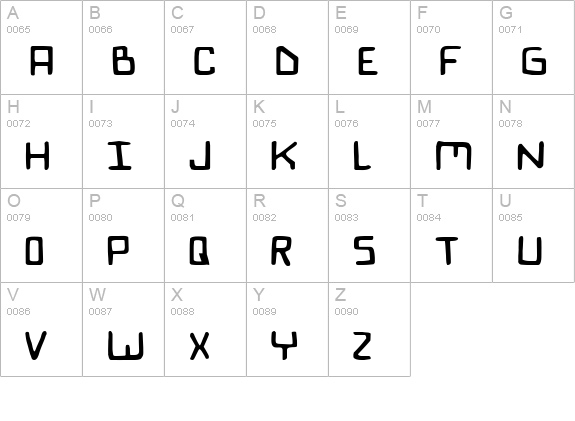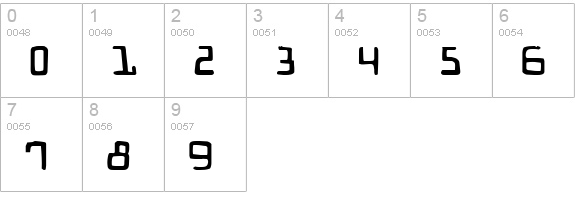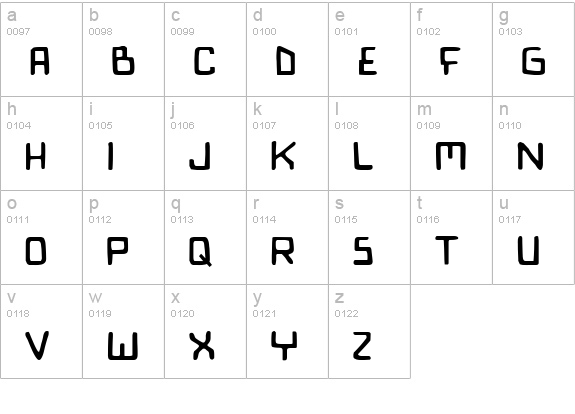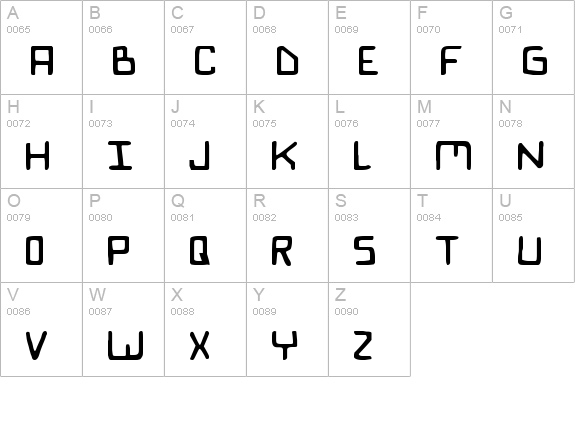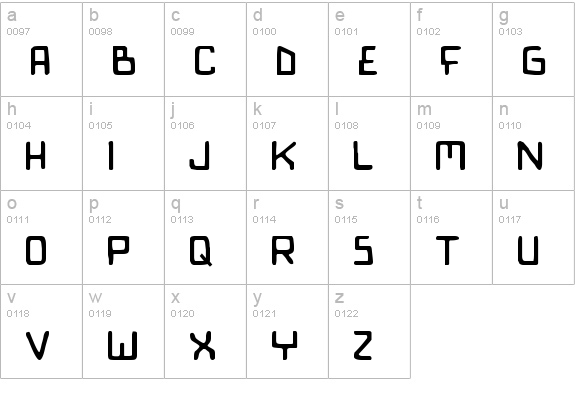
Bionic Comic Font Details
The Bionic Comic font is a bold and dynamic typeface that exudes a futuristic and robotic aesthetic. Its sleek lines and sharp angles give it a modern and edgy look, making it perfect for designs that require a high-tech or sci-fi feel. The Bionic Comic font is versatile and can be used for a variety of projects, from comic books to posters to digital art. What sets the Bionic Comic font apart is its unique blend of technology and creativity, making it a standout choice for designers looking to make a statement. Whether you're working on a superhero comic or a cutting-edge advertising campaign, the Bionic Comic font will bring your vision to life with its distinctive style. Best of all, the Bionic Comic font is available for free download at FontsMarket.com, allowing you to access this cutting-edge typeface without breaking the bank. Don't miss out on the opportunity to add the Bionic Comic font to your design toolkit and take your projects to the next level.